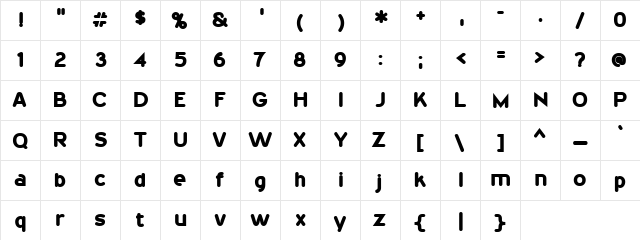
LGame Regular
Design Context for LGame Typeface
LGame takes a measured approach to typography — its balanced proportions and neutral character make it a reliable workhorse for both digital and print work.